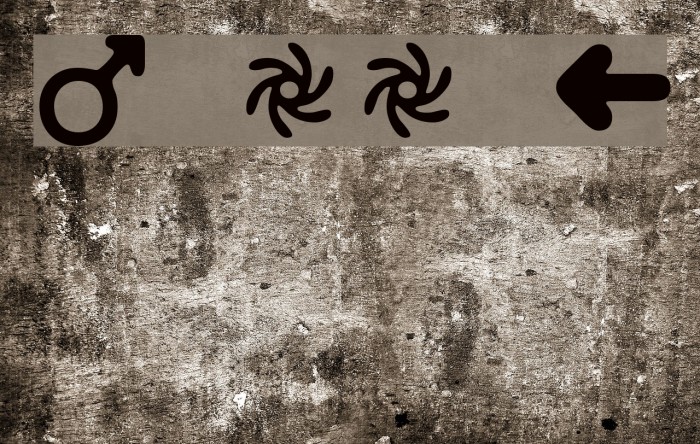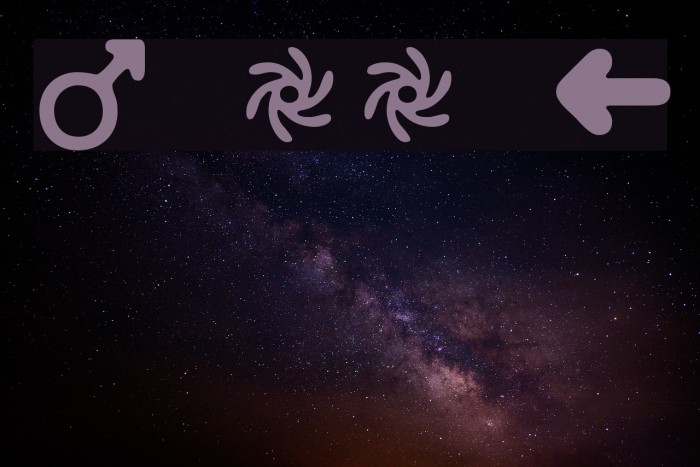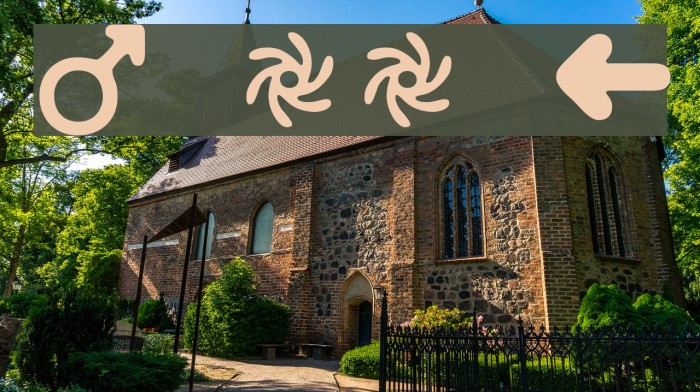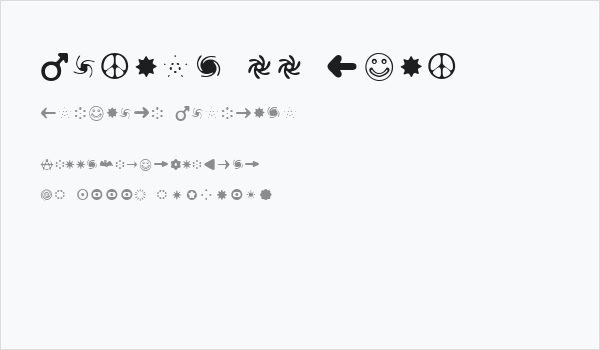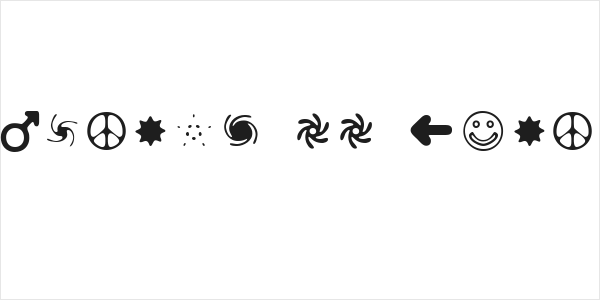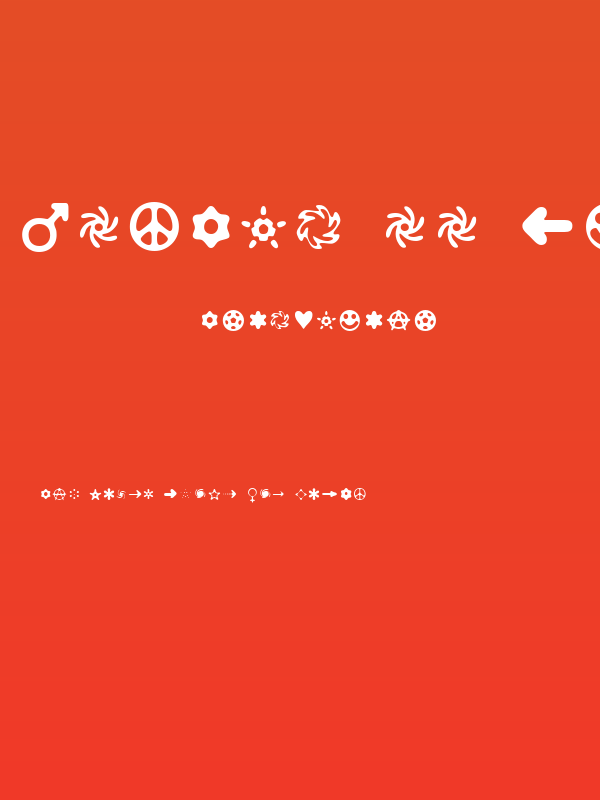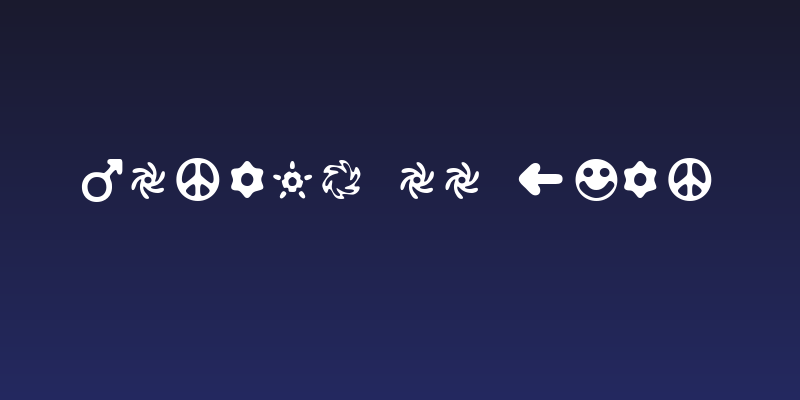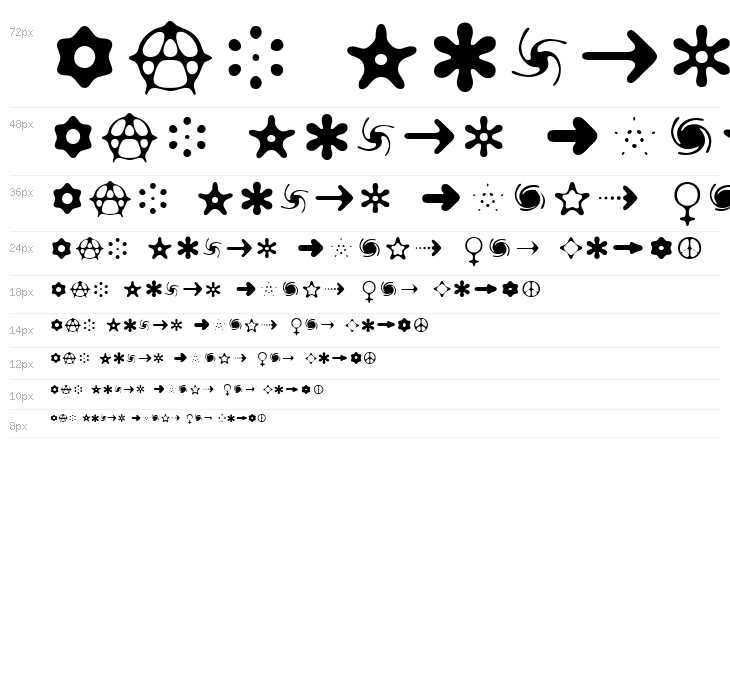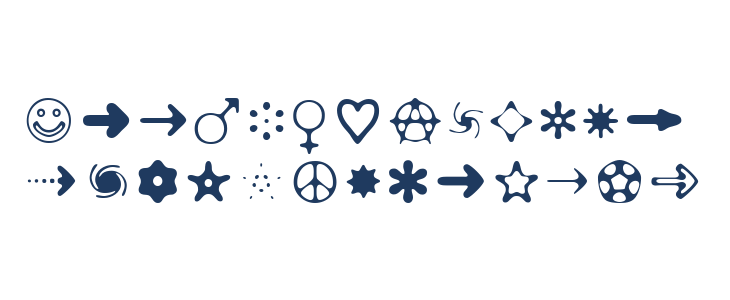
Distro II Bats Font
Distro II Bats Description
A collection of bold, playful pictograms and symbols including arrows, smiley faces, gender symbols, hearts, peace signs, stars, and various abstract shapes. The icons are solid and filled, with a consistent line weight and rounded edges, creating a cohesive and approachable appearance.
| Overall Style | Playful, Decorative, Modern |
| Use Case | Icons, Decorative elements, Branding, Educational materials |
| Proposed Projects | Stickers, educational materials, children's books, infographics, playful branding, digital interfaces, and decorative elements. |